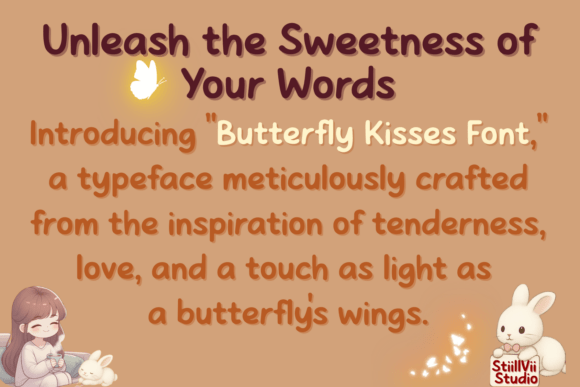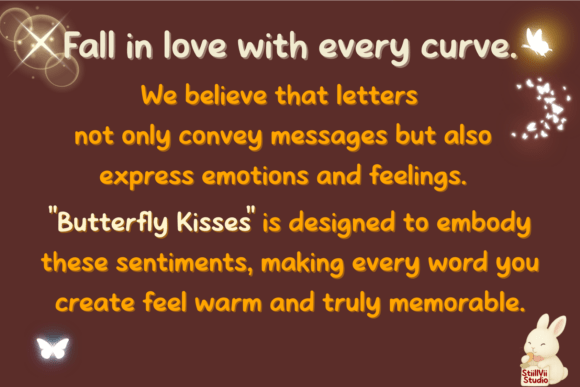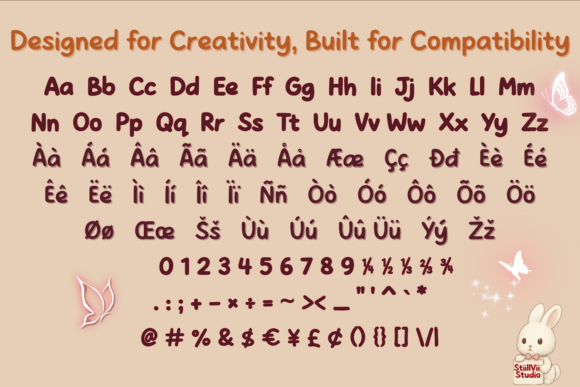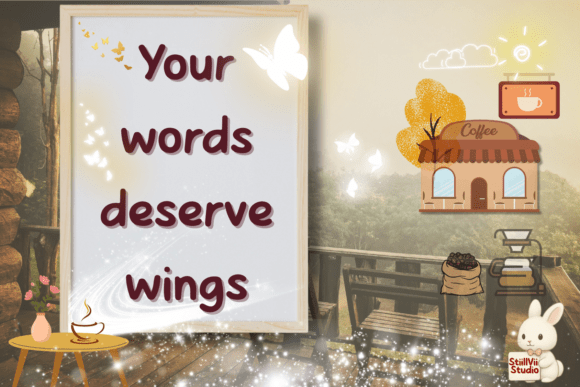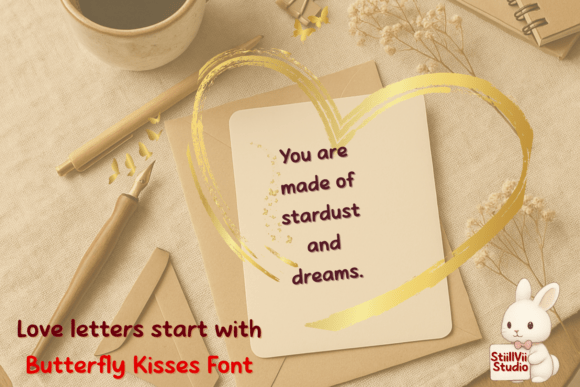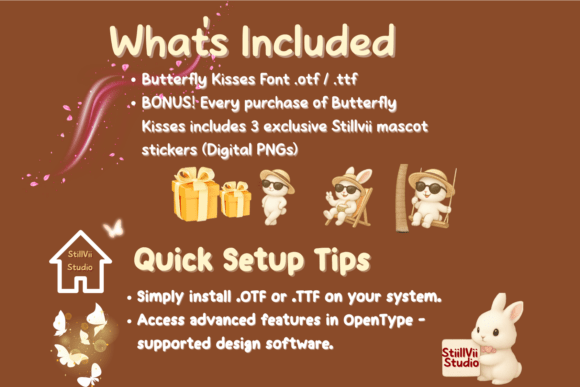
Introducing Butterfly Kisses Font: A Sweet Touch for Your Designs
Have you ever been working on a design project, and suddenly, you felt like it was missing that special something? Maybe it was a birth announcement, a nursery print, or a wedding invitation. You’re scrolling through fonts, trying to find the perfect one, and then – it hits you! That’s exactly what happened to me when I discovered the Butterfly Kisses font. This charming, handwritten typeface has become a staple in my design toolkit, and I’m excited to share its sweetness with you.
A Personal Review: What I Love About Butterfly Kisses
Let’s dive into what makes Butterfly Kisses font so special. Here are a few things I adore about it:
- ✨ Romantic and playful feel: The soft, rounded strokes and friendly rhythm give it a youthful and innocent spirit.
- ✅ Multilingual support: Perfect for global designs, it supports multiple languages.
- ✅ Clean legibility: Easy to read, even at smaller sizes.
- ✅ OpenType features: Offers a range of glyphs and stylistic alternates for creative freedom.
While Butterfly Kisses font is amazing, there are a few things to keep in mind:
- ⚠️ Not ideal for body text: It’s best used for headlines, titles, or short paragraphs due to its playful nature.
- 🤔 Some letters may require manual kerning: For optimal spacing, you might need to adjust kerning pairs.
The Butterfly Kisses font was inspired by the simple joys of life – a warm hug, a child’s laughter, and the beauty of butterflies. Its creator aimed to capture the essence of spring and affection in a digital format. The result is a font that feels like a personal, handmade touch without the clutter.
| What makes Butterfly Kisses font unique? | Its soft, rounded strokes and friendly rhythm give it a youthful and innocent spirit, perfect for projects needing a touch of romance. |
| Is Butterfly Kisses suitable for body text? | While it’s possible, Butterfly Kisses is best used for headlines, titles, or short paragraphs due to its playful nature. |
Butterfly Kisses font is more than just a typeface; it’s a way to add a personal touch to your designs. Whether you’re creating wedding invitations, nursery prints, or personalized gifts, this charming font brings a sense of warmth and kindness. Give it a try and see how it can transform your projects!